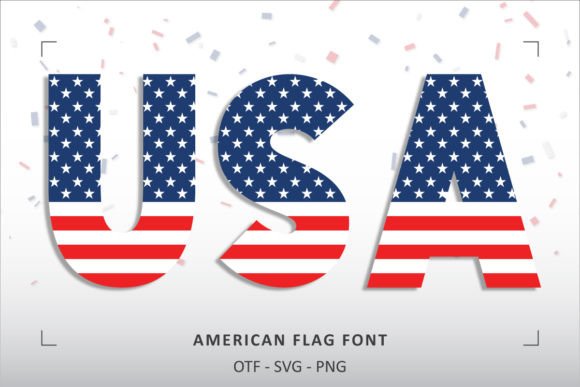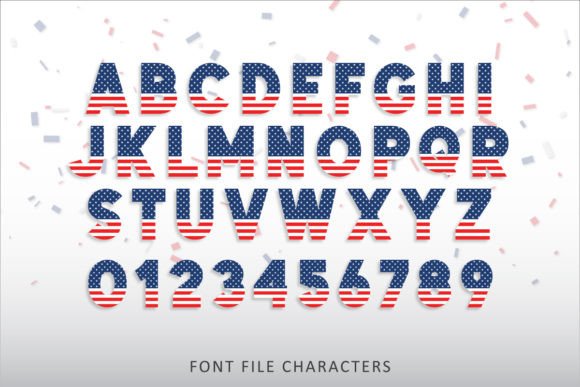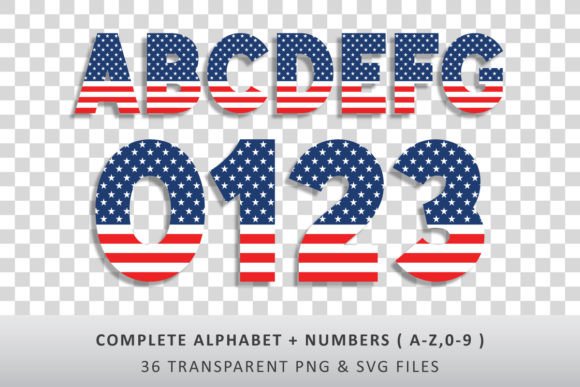
American Flag Font
Introducing “American flag Font” – a United States of America flag font style it’s the perfect font for Memorial Day-themed or 4th of July-themed projects. It works great for creating cool designs that scream for attention. It’s ideal for anything ranging from t-shirts, book designs, restaurant menus, blog writing, and greeting cards to stickers, or anything that needs a casual touch. Fall in love with its incredibly cool style, and use it to create lovely designs!